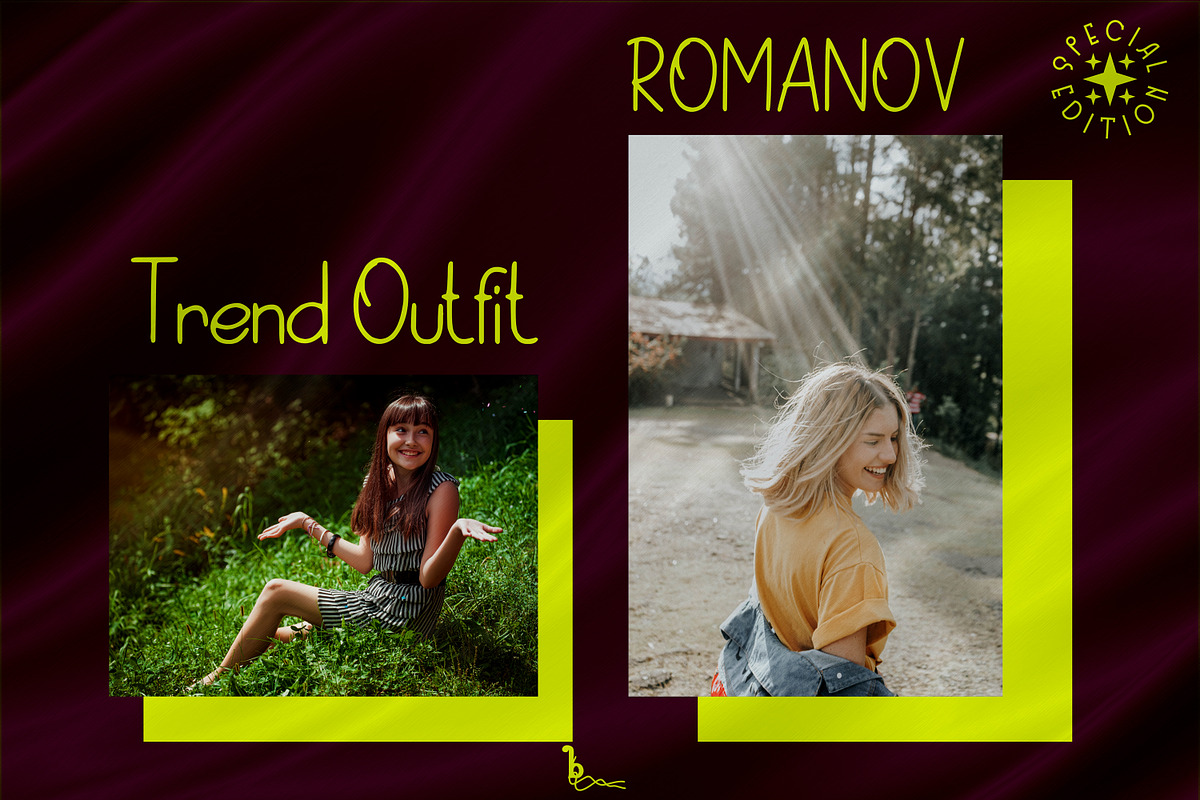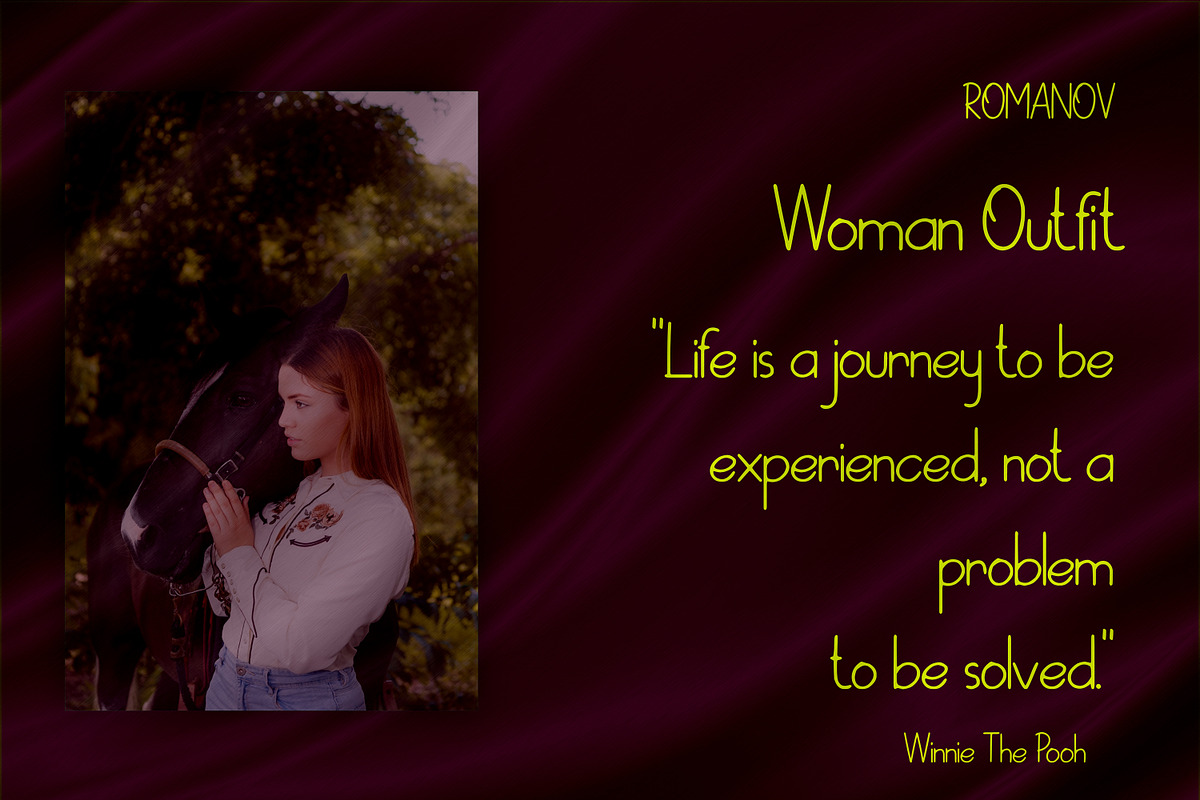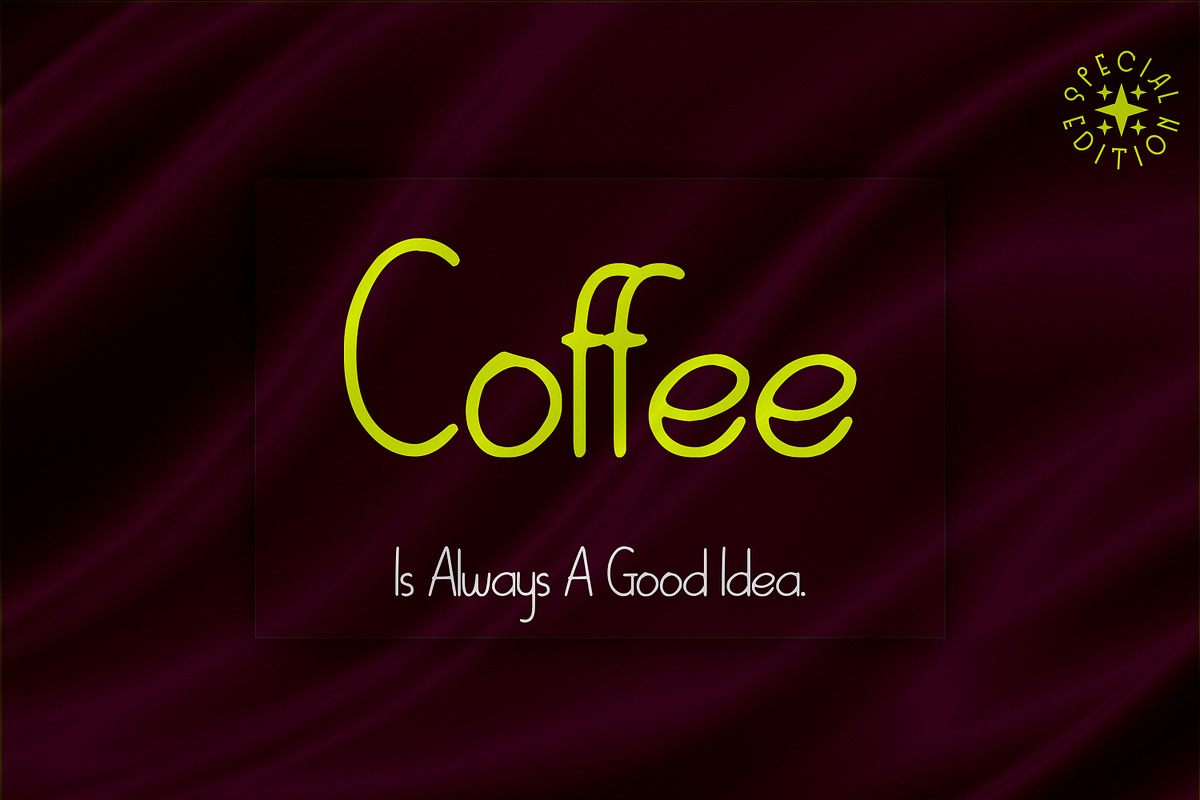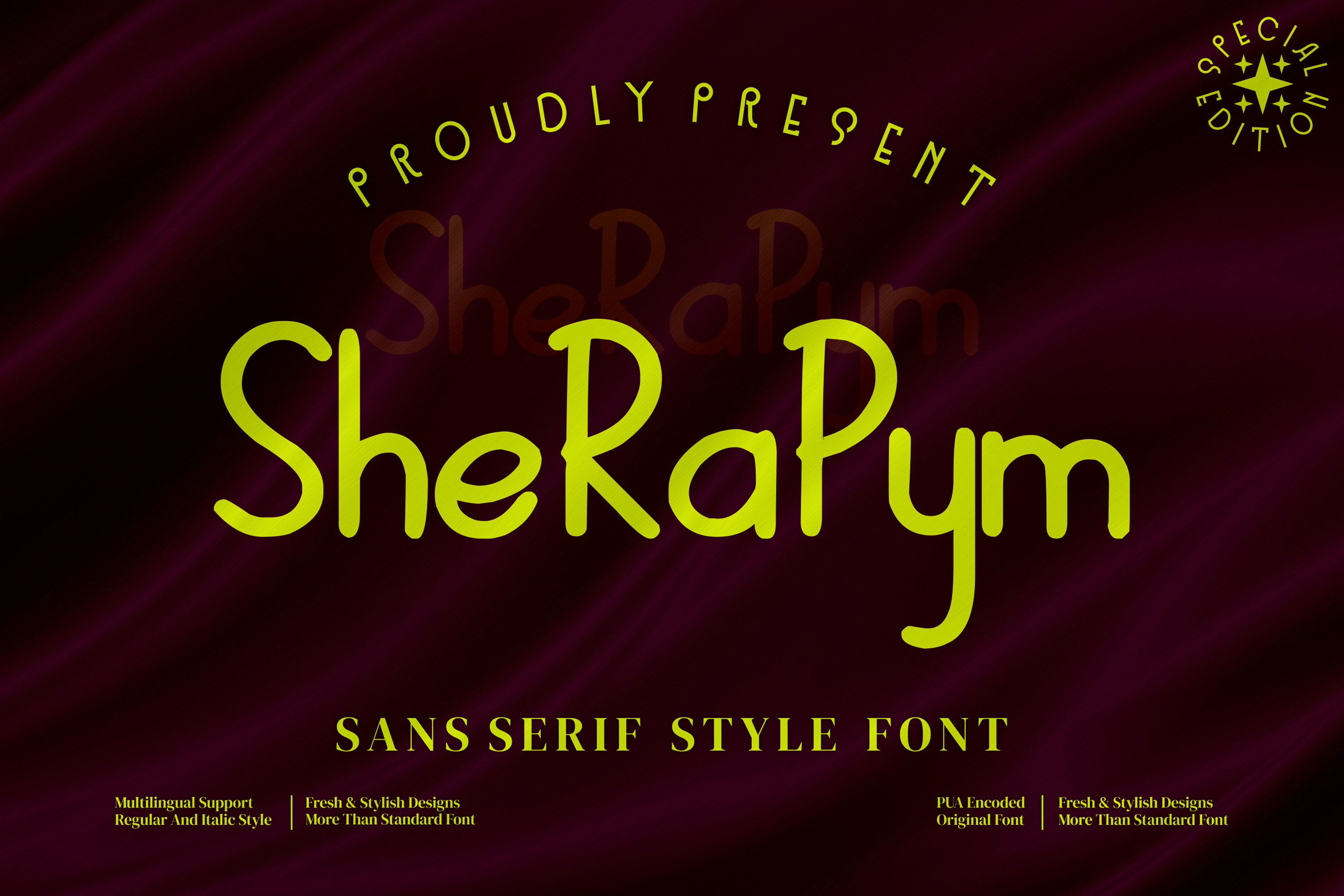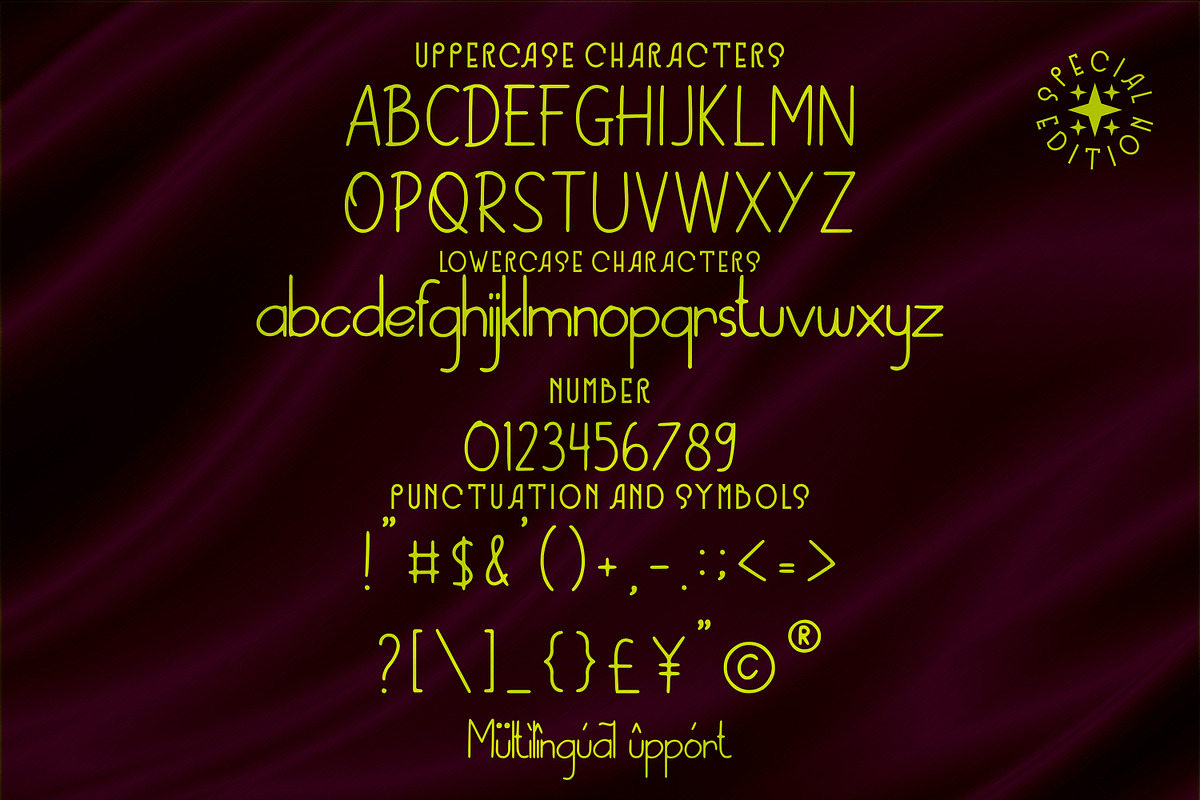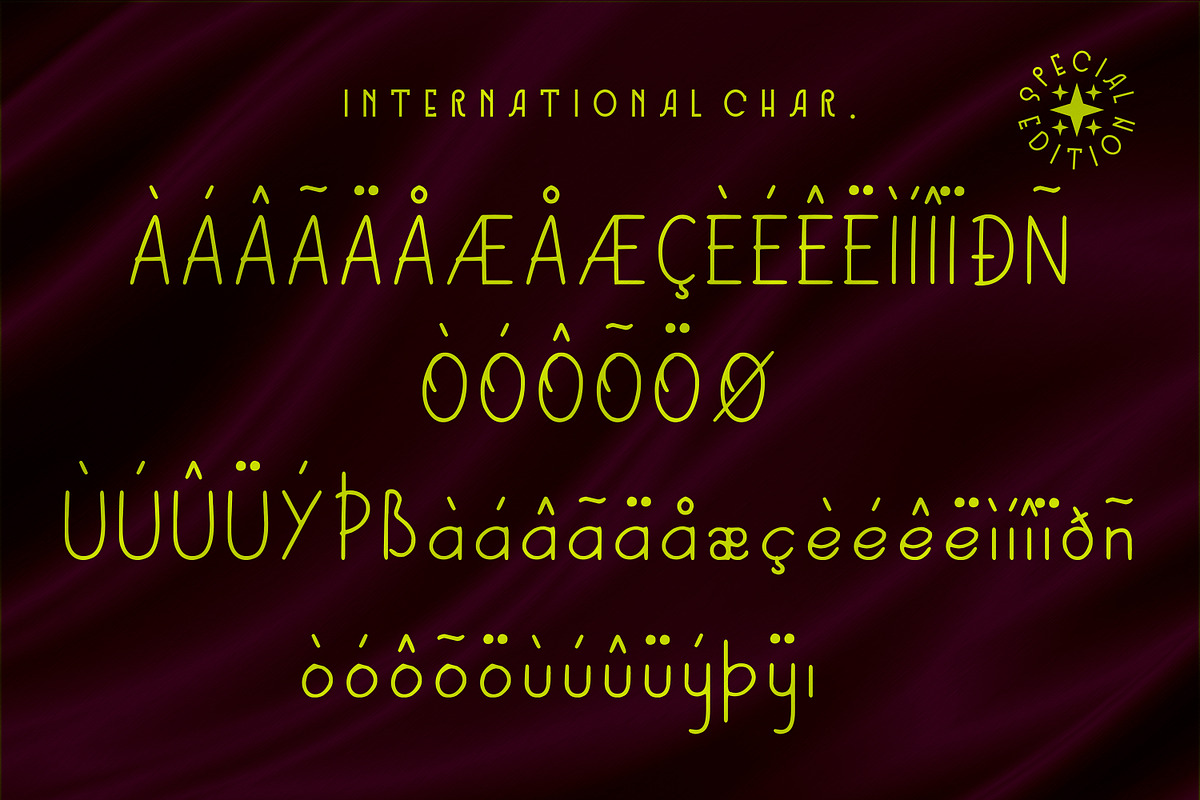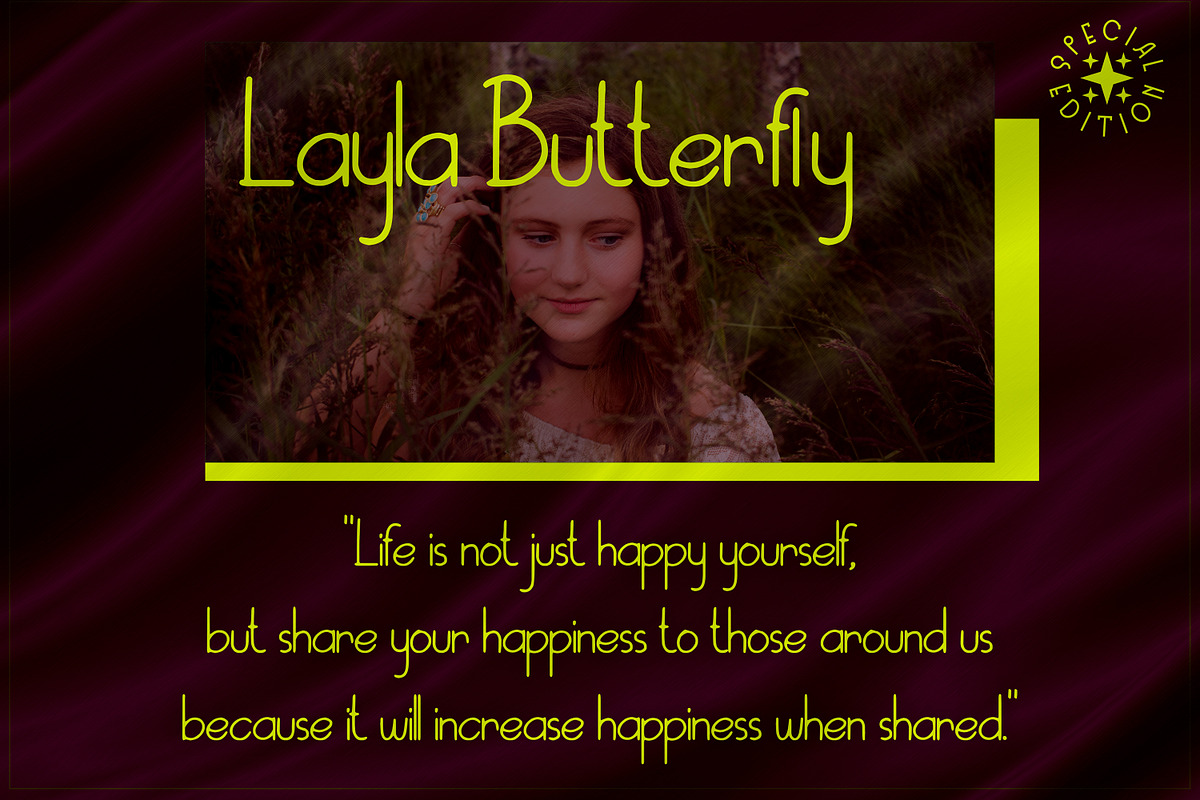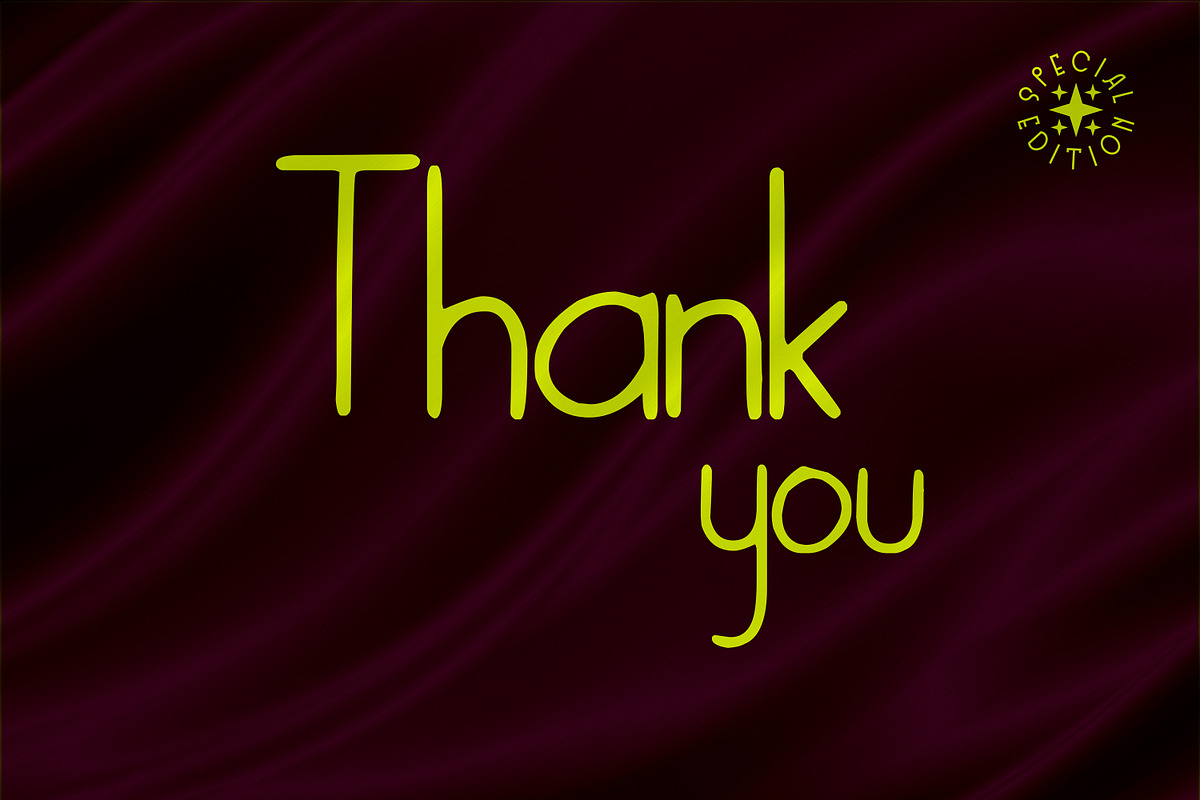
Sherapym - Sans serif stye font
Sherapym Handwriting - Sans serif style font, suitable for any projects such as: logos, branding projects, homeware designs, product packaging, mugs, quotes, posters, shopping bags, t-shirts, book covers, name card, invitation cards, greeting cards, label, photography, watermark, special events, and all your other luxury projects that need a premium signature taste. Product Font Content : TTF OTF WOFF